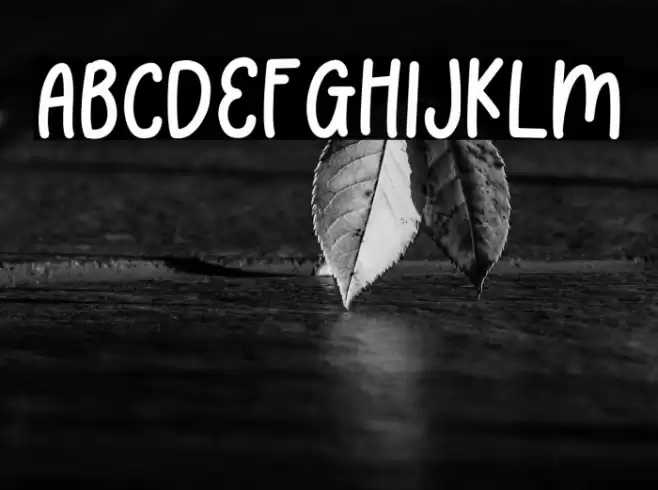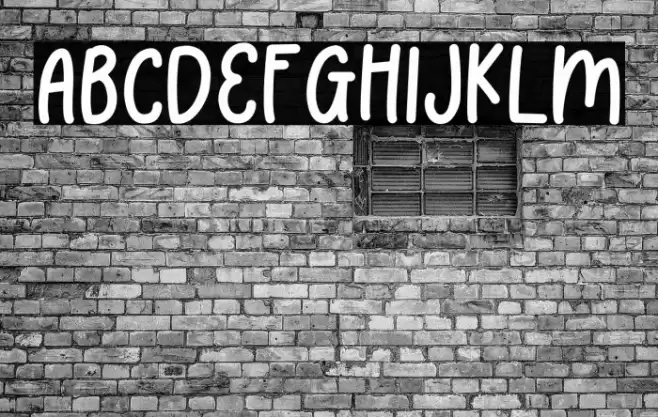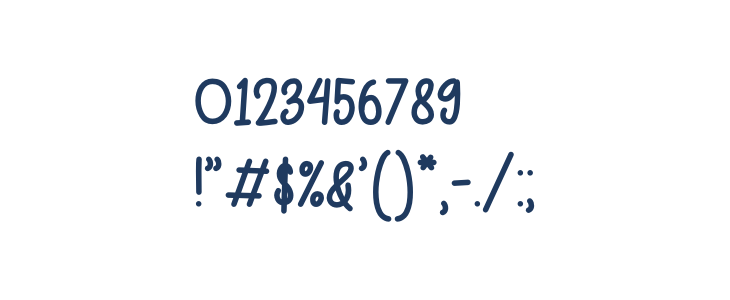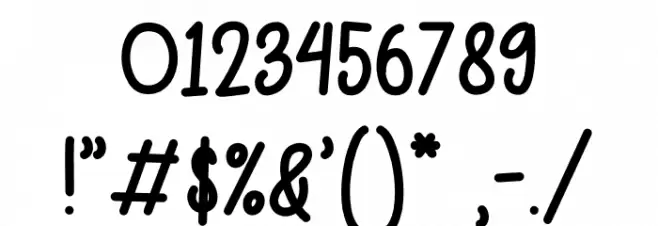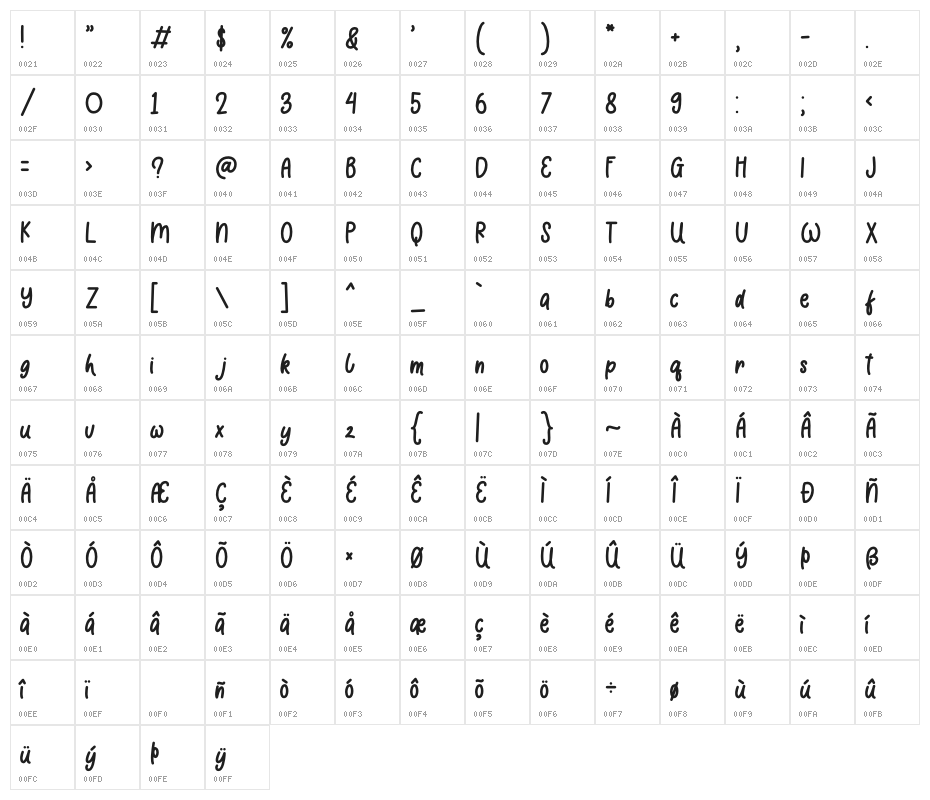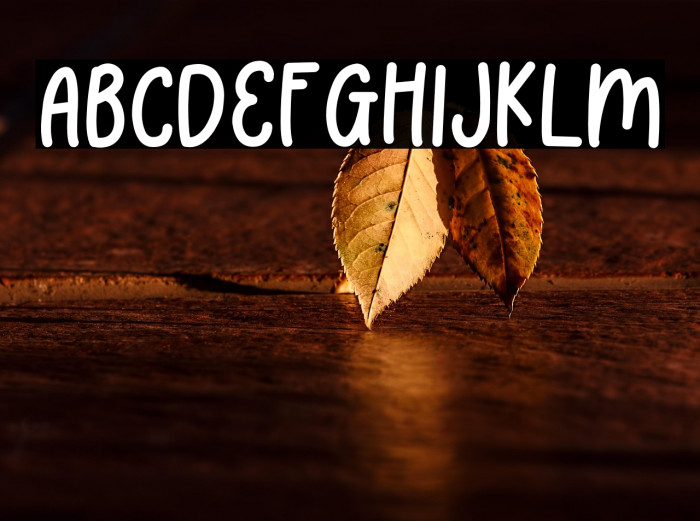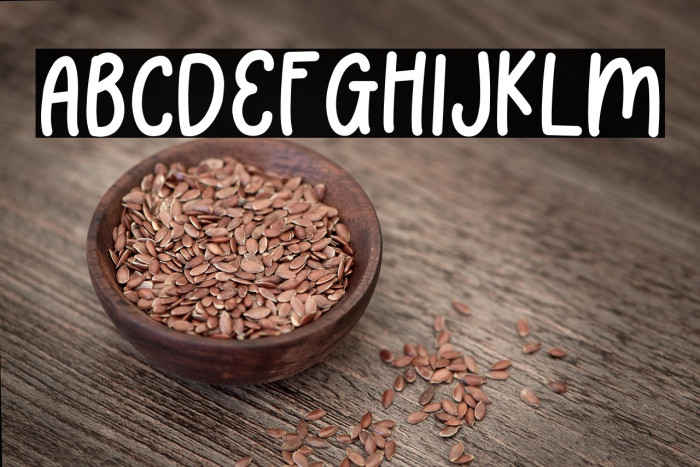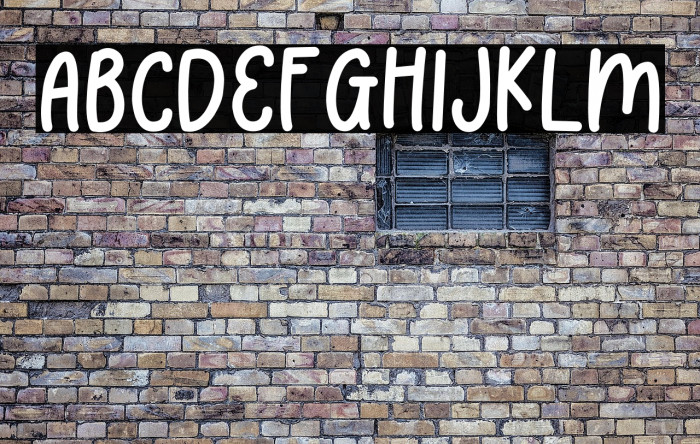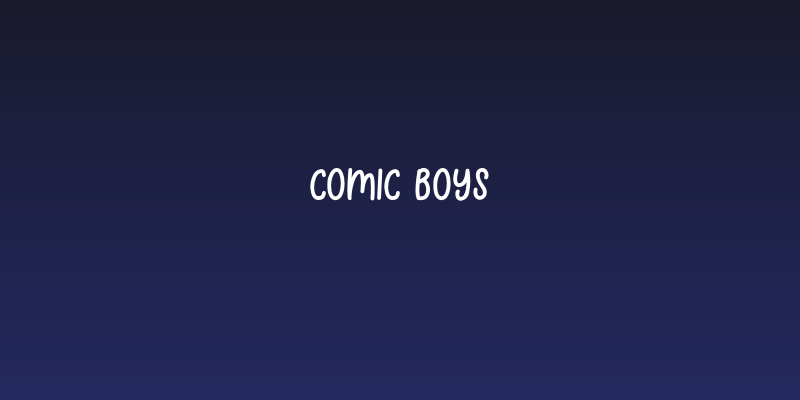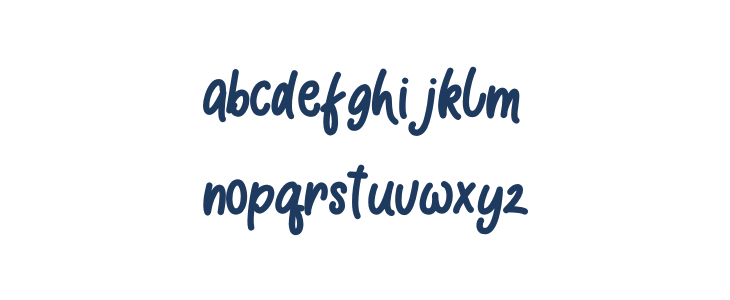
Comic Boys Font
Comic Boys Description
This playful and informal font features a handwritten style with rounded edges and a casual appearance. The letters are slightly slanted, adding a dynamic and lively feel. The uppercase and lowercase characters maintain a consistent flow, while the numbers and special characters complement the overall style. The font's strokes are even, with medium contrast, making it easy to read while retaining a fun and whimsical character.
A playful, handwritten font with rounded edges and a casual style from Uncategorized fonts.
- Proposed Projects: Ideal for comic books, children's books, playful branding, greeting cards, and informal invitations.
- Overall Style: Playful
- Use Case: Headlines, Logos, Informal Text